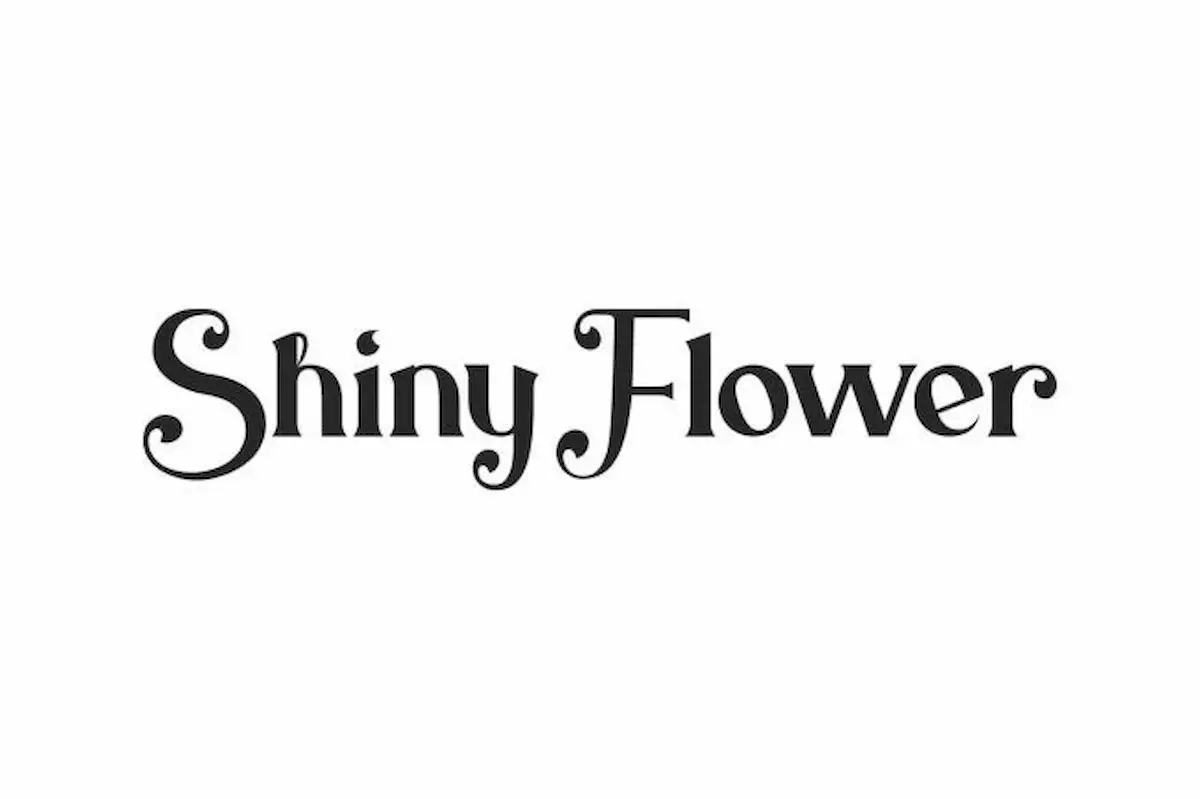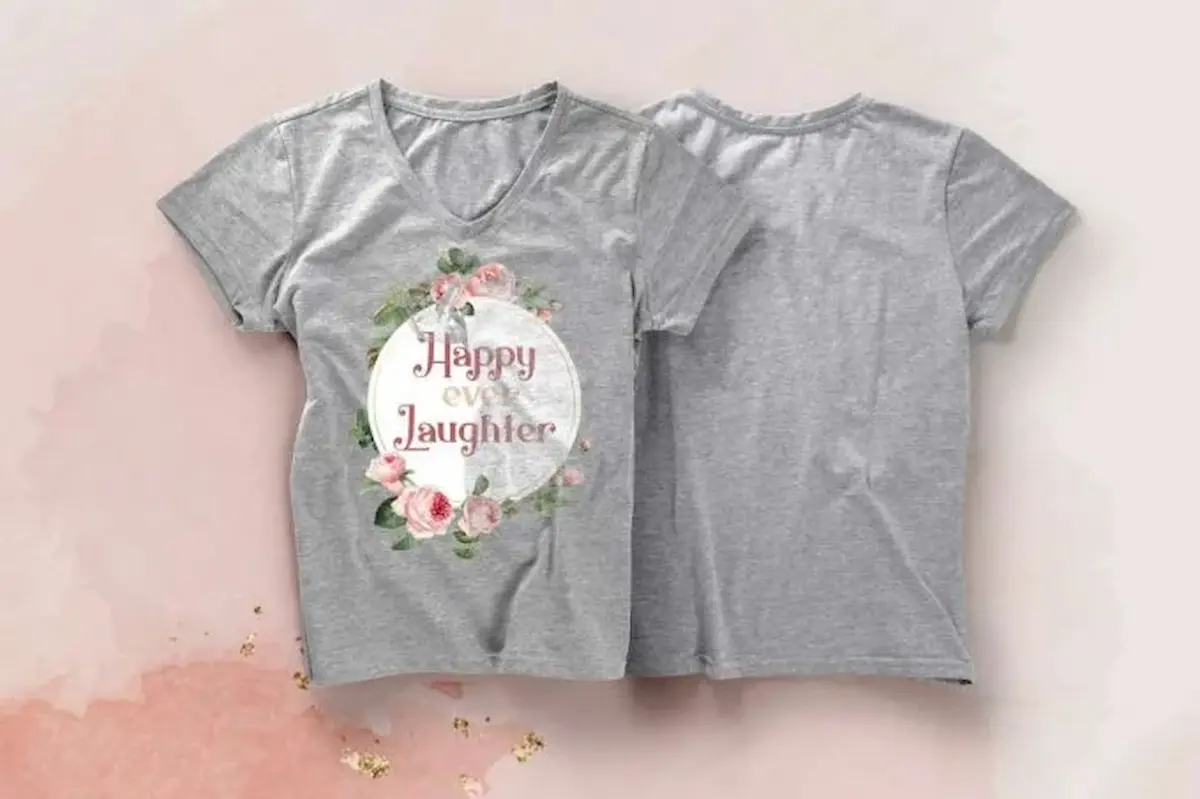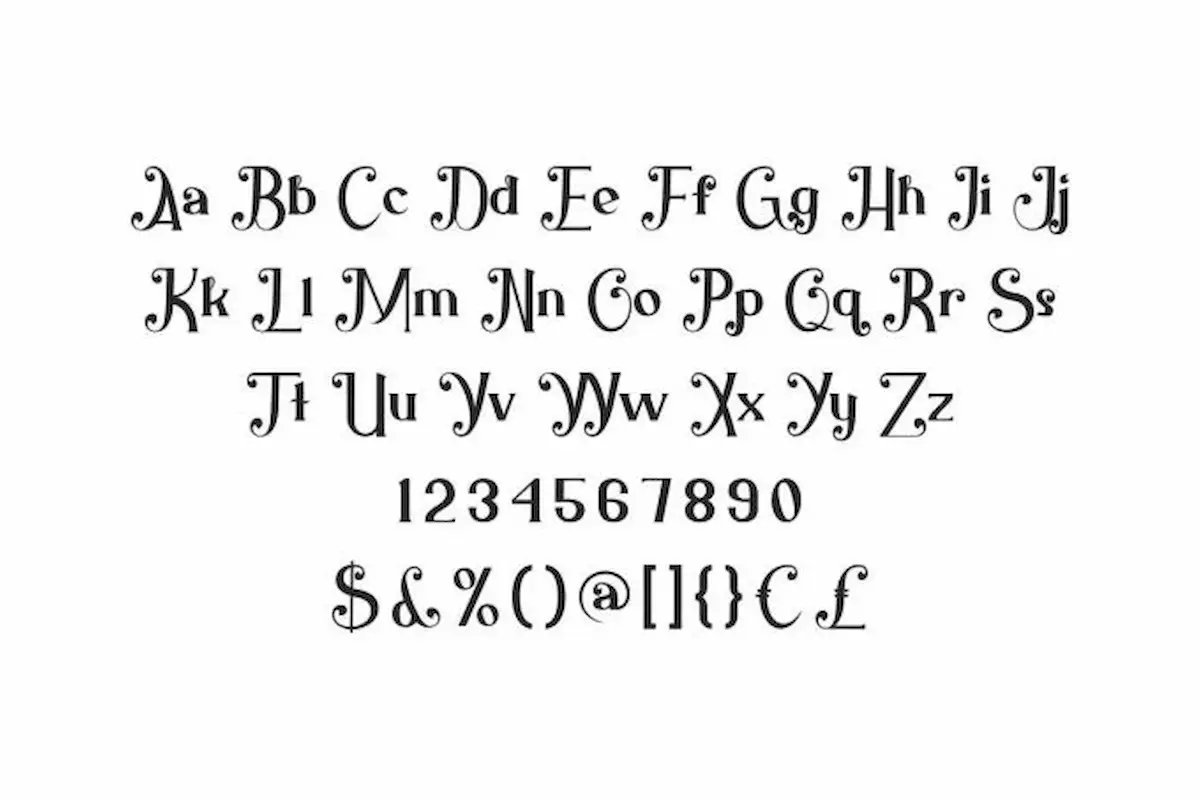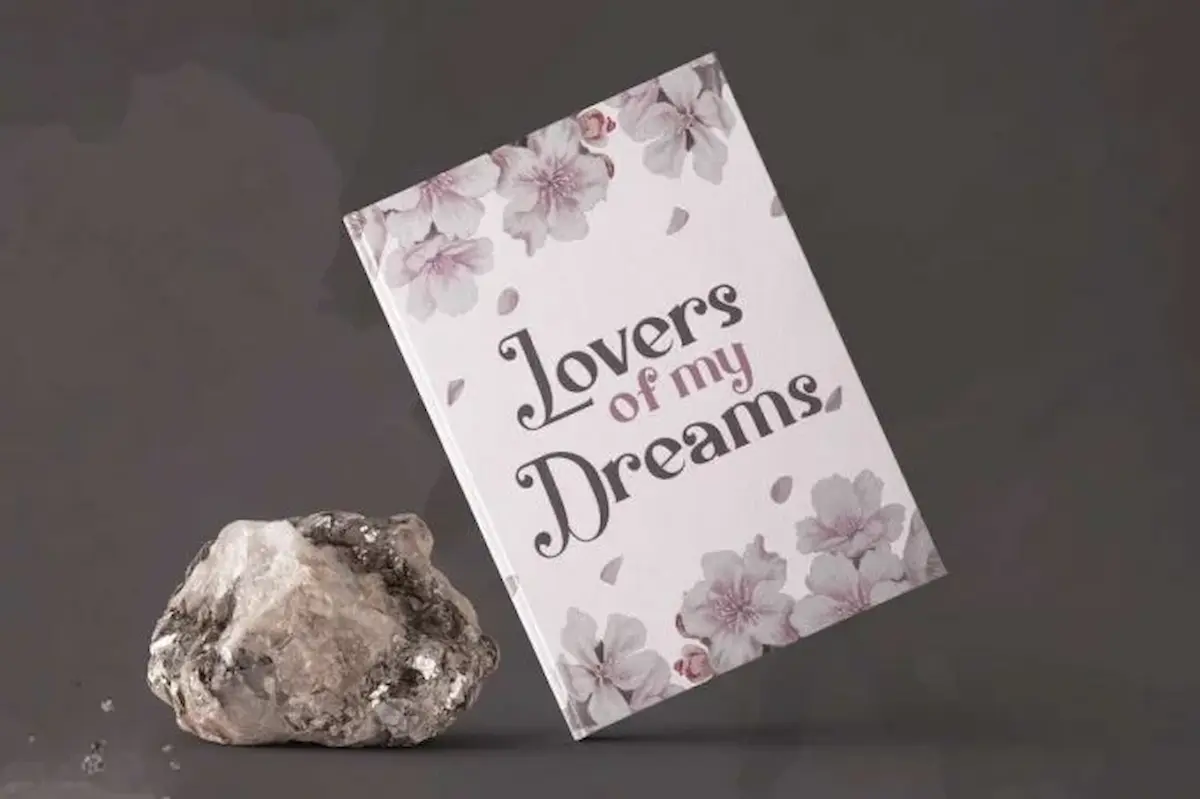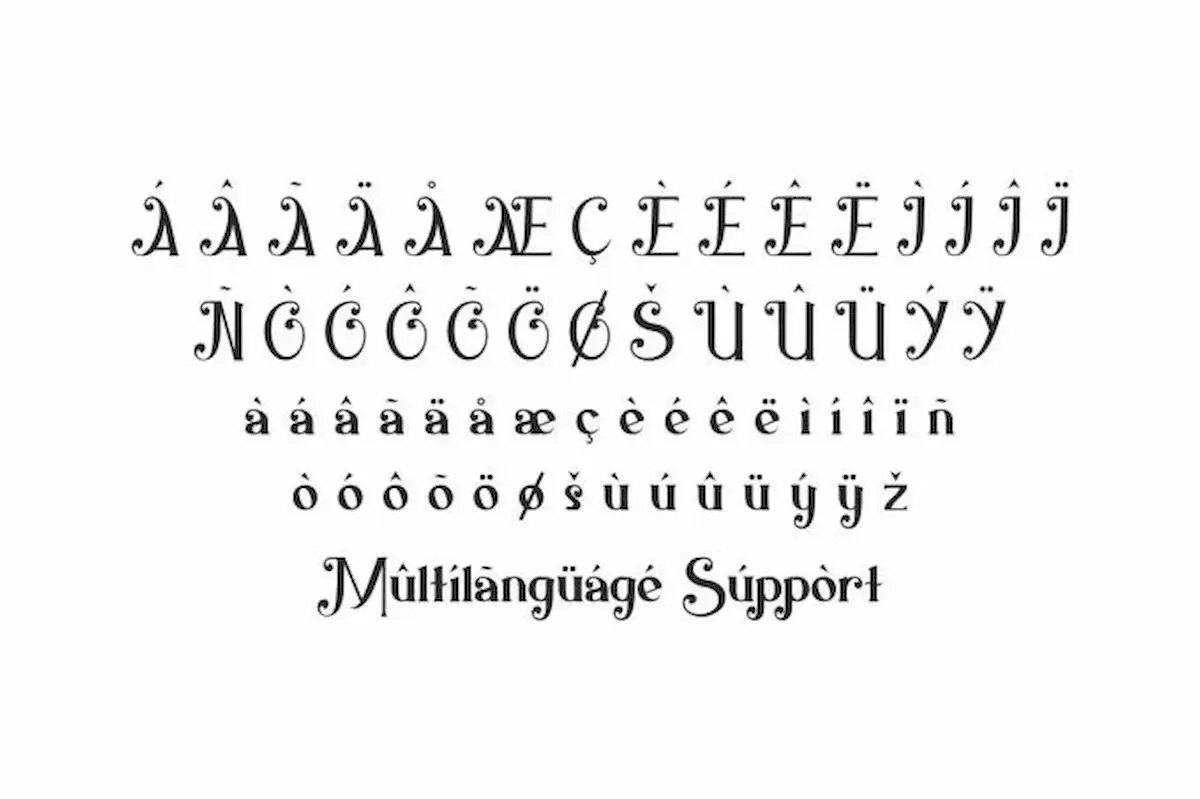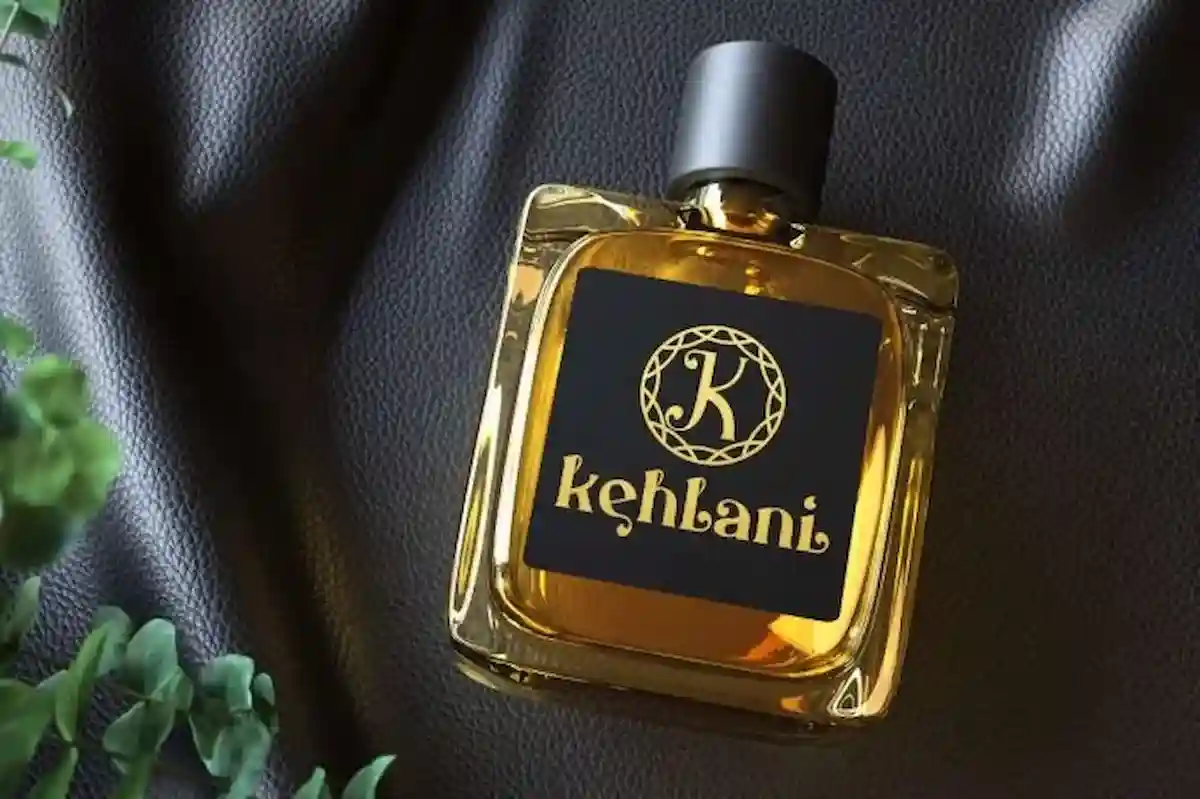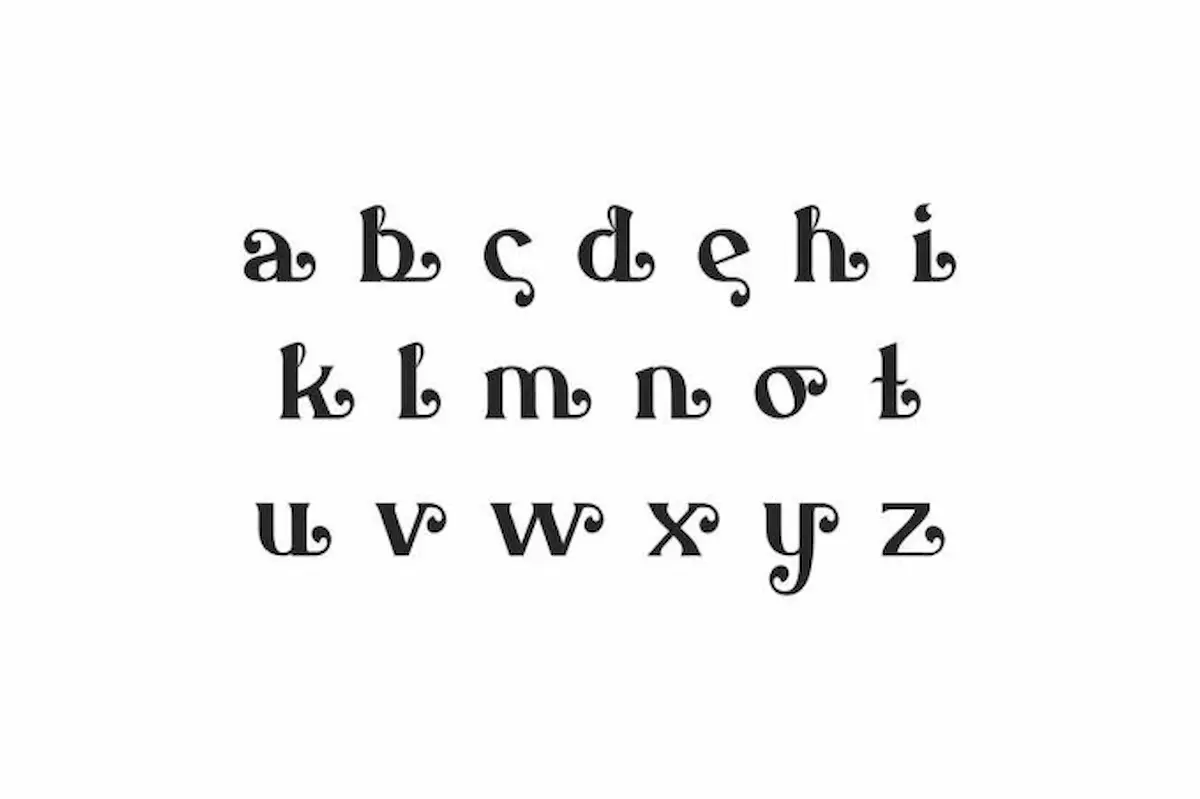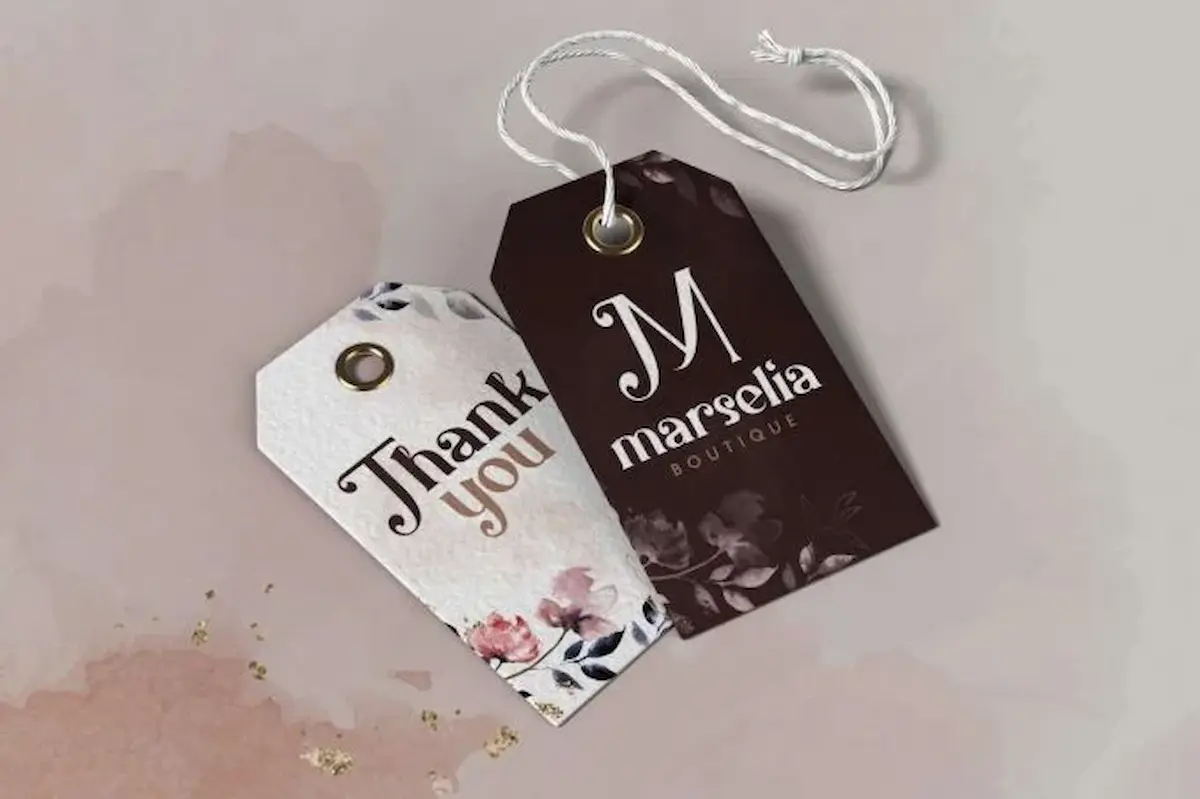
Shiny Flower Font is a classic decorative display font with unique and fancy look. This font is awesome for jewelry business, clothing, boutique, writers, party, crafting, wedding etc.
Shiny Flower Font is an elegant display serif font. The font originally inspired by flower shapes. This typeface is perfect for a luxurious themed project, also suitable for designs such as cosmetic, fashion, invitation, label, logo branding, packaging, t-shirts, title, writers and more. This font is a classy serif font with its own unique style and modern look
Shiny Flower Font is a unique and stylish serif font, shine and have its own beauty. Add it confidently to your projects, and you will love the results. This font good for classy design, clothing, labels, logo, title and etc. This font is PUA encoded which means you can access the available glyphs and alternate with ease! Tested Works on PC & Mac